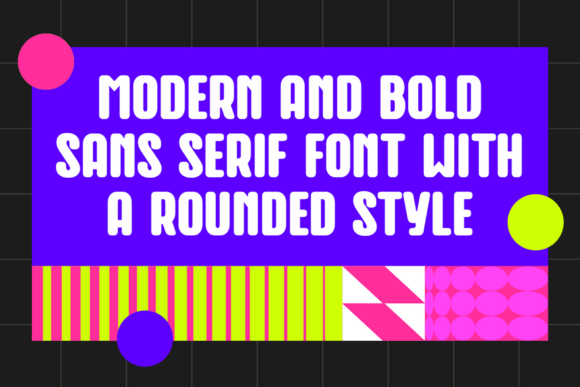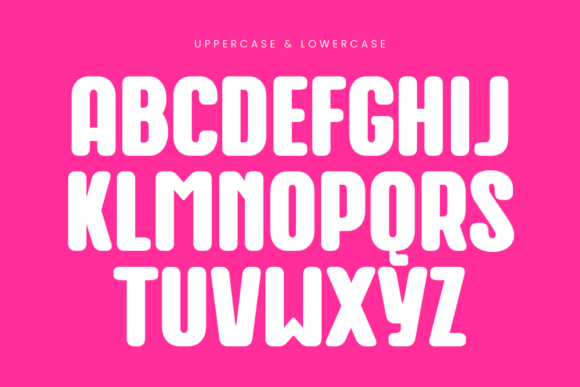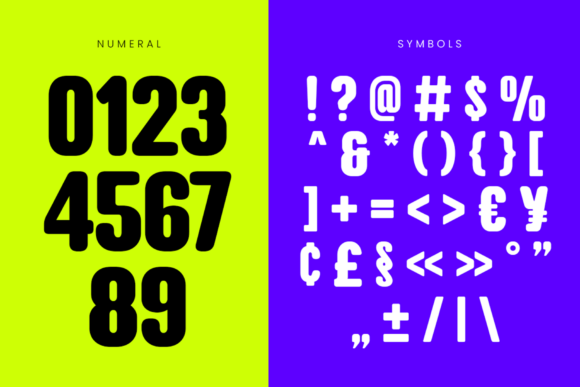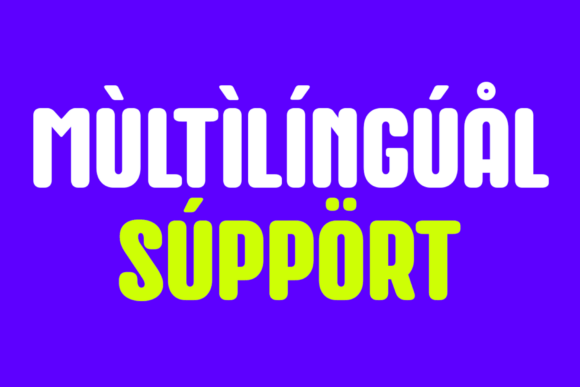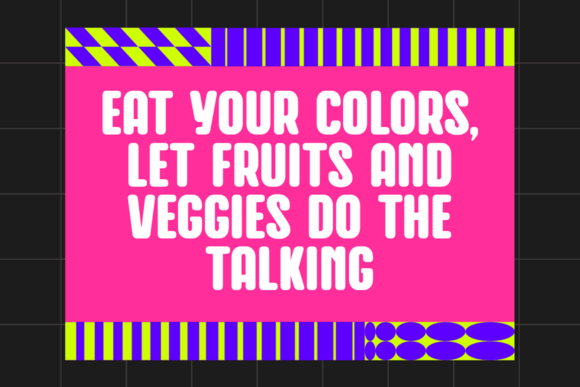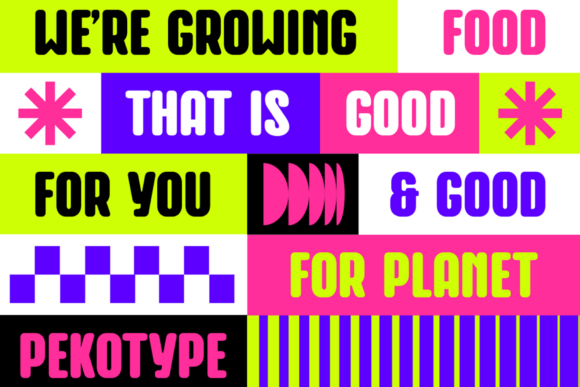
Unleash the Fun and Friendly Baune Font in Your Designs
Have you ever stared at a blank page, waiting for inspiration to strike? You know, that moment when the perfect font pops into your head and suddenly everything clicks? For designers, it’s a thrilling feeling that can elevate a project from ordinary to extraordinary. And that’s exactly what the Baune Font can do.
This bold rounded sans-serif display font is designed to bring energy and personality to your designs. Whether you’re creating a logo, packaging, or social media graphics, Baune Font is the perfect choice for brands that want to feel youthful and confident. Its soft curves and chunky shapes make it easy to love, and its clean, modern look ensures it stays readable and approachable. With its wide range of applications and multilingual support, the Baune Font is a valuable tool for designers who want to add a touch of fun and friendliness to their work.
Baune Font Key Features
- Unique Characteristics: Baune Font features a unique, modern sans-serif design with a distinctive x-height and a range of weights, making it suitable for a variety of applications, from body text to headings.
- Language Support: The font includes support for multiple languages, including Latin, Cyrillic, and Greek scripts, making it a versatile choice for global audiences.
- Kerning and Ligatures: Baune Font includes advanced kerning and ligature tables, ensuring smooth text rendering and a professional appearance.
- Font Weight and Style: The font family includes a range of weights and styles, from Light to Bold, and includes italic and oblique variants, providing flexibility for designers and typographers.
Designer Review: Baune Font
Overall, I think Baune Font is a decent sans-serif font, but it has its pros and cons. Let’s start with the good stuff.
- Easy to read: Baune Font is clear and legible, making it perfect for body text or short headlines.
- Modern look: The font has a sleek, modern aesthetic that works well for contemporary designs.
- Good for digital: Baune Font is optimized for digital use, so it looks great on screens.
- Lack of personality: Baune Font is a bit too generic, lacking the unique character that sets some fonts apart.
- Not ideal for long headlines: The font can feel a bit too condensed for longer headlines or titles.
- Not suitable for all audiences: Baune Font may not be the best choice for designs targeting older audiences or those who prefer more traditional typography.
Overall, I’d give Baune Font a solid 3 out of 5 stars. It’s a solid, workhorse font that gets the job done, but it won’t blow you away with its unique features or personality. If you’re looking for a modern, easy-to-read font for digital use, Baune Font is a decent choice. Just be aware of its limitations and choose it accordingly.
Baune Font: A Practical Application Guide
Applying Baune Font in PowerPoint/Word
In PowerPoint and Word, select the Baune Font from the font dropdown menu and apply it to your text. Experiment with font sizes, colors, and styles to create a visually appealing design. Use the ‘Font’ dialog box to access advanced font options and customize the text to your needs.
To get the most out of Baune Font, experiment with different font styles and combinations to create a unique design. Use the font in conjunction with other design elements, such as images and graphics, to add depth and interest to your design. Consider using Baune Font in headings and titles to create a clear visual hierarchy.
Baune Font is ideal for use in graphic design, digital marketing, and branding projects. Use it to create eye-catching headlines, titles, and logos that grab attention and convey your message effectively. Baune Font is also suitable for use in print materials, such as business cards and brochures, where a clean and modern design is essential.